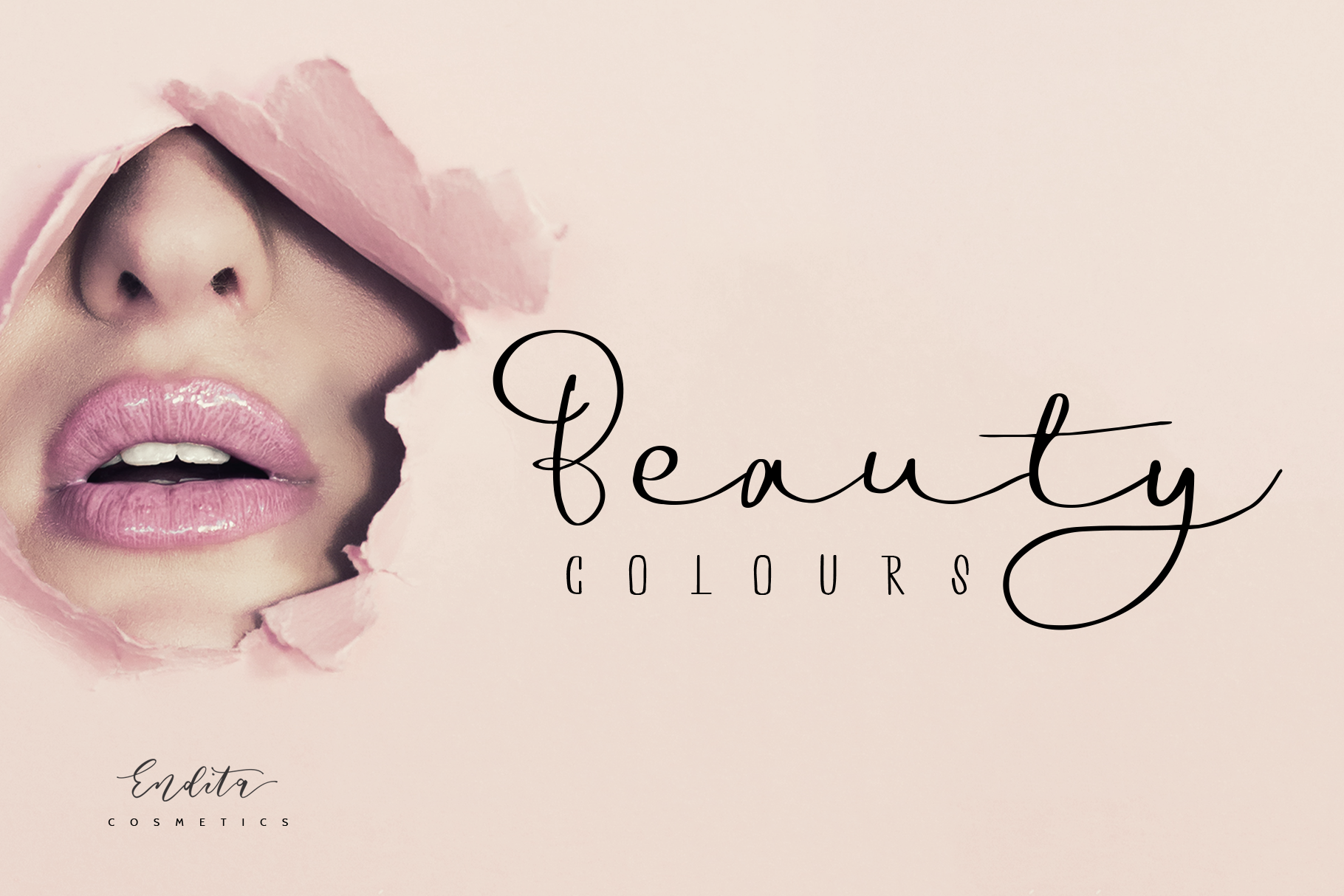
Boulevard - Handwritten Font Duo
Boulevard Font Duo is a handwritten romantic Script and hand lettered sans serif will give you a perfectly pair and suited for your beautiful wedding invitations, cards, stunning logos, quotes, even other awesome stuffs you created!
- Special ligatures
- Numbers and Punctuation
- International languages
- Special underline swashes
For special underline swashes you can type --1, --2, --3, or --4 to display the underline after word. So fun and easy!